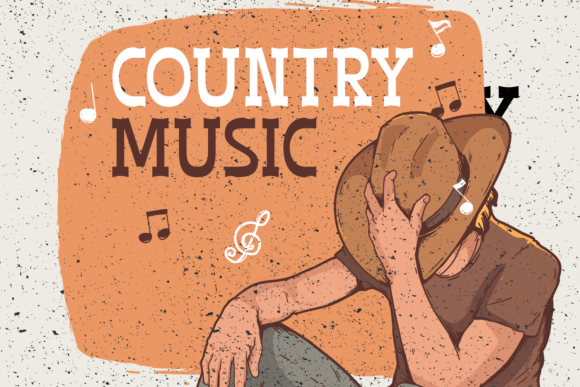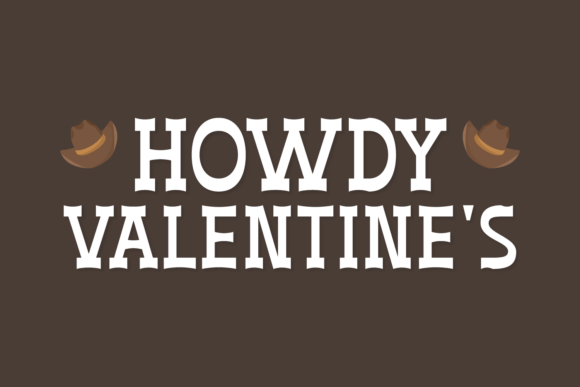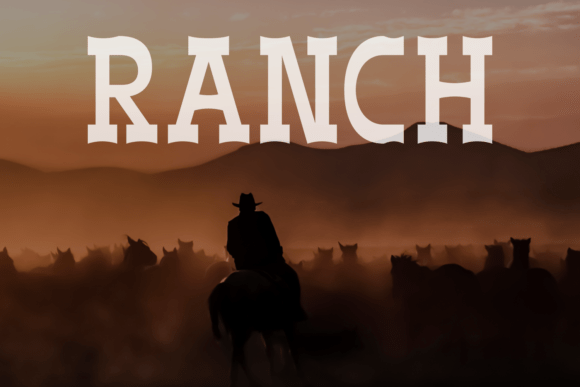
Introduction to Loved Cowboy Font
Immerse yourself in the old-world charm of β€œLoved Cowboy”, an unmistakable slab serif font.
Embodying the spirit of the Wild West, this rustic design is garnished with the sturdy aesthetics of cowboy block letters and western typography Whether you’re a horse lover or a dreamy wanderer of vintage landscapes, Loved Cowboy brings you a bold and distinct presence.
Why Choose Loved Cowboy Font?
Loved Cowboy Font offers exceptional quality and versatility, making it a valuable addition to your design toolkit. Whether you’re creating for personal projects or commercial use, Loved Cowboy Font delivers professional results.